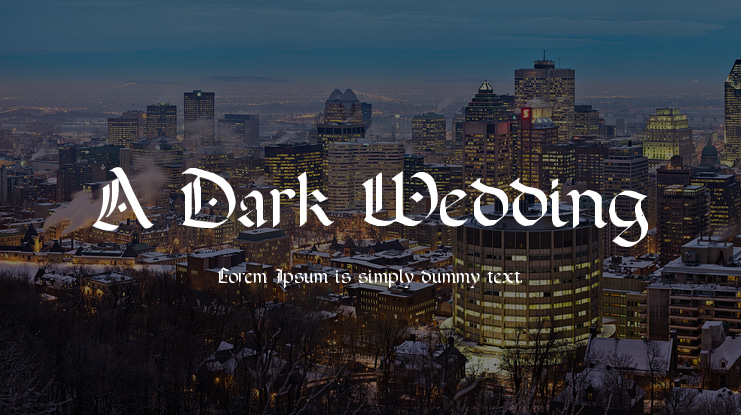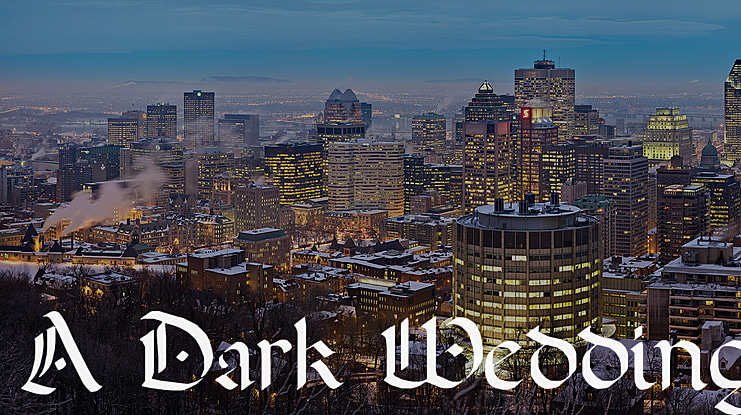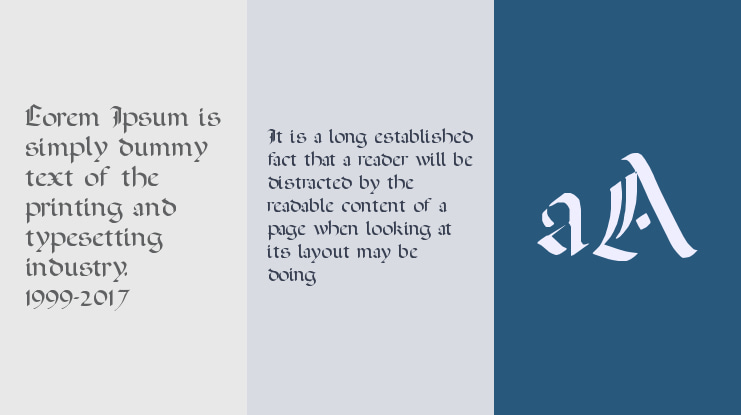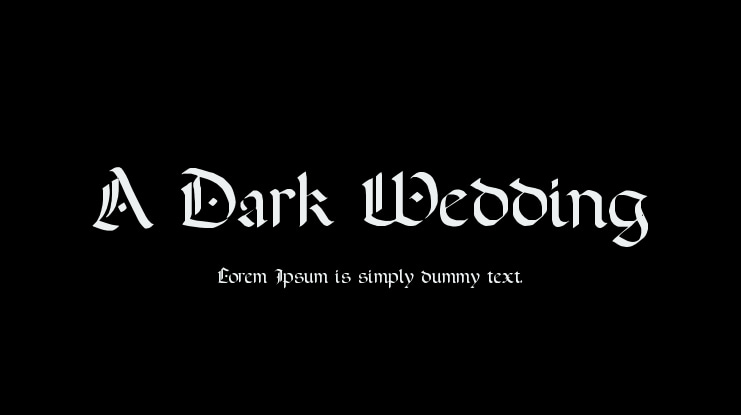
A Dark Wedding Font
A Dark Wedding font, just caps, lowercase and numbers & some minor punctuation.. Great for headings! Kick my ass @ www.fontorama.net Or kick me even harder @ my art-site : www.murderama.com